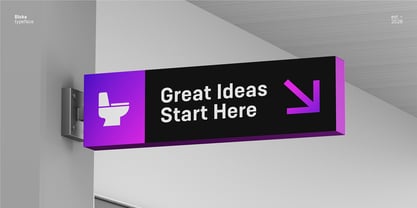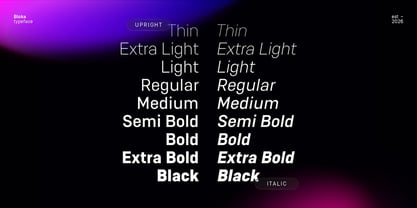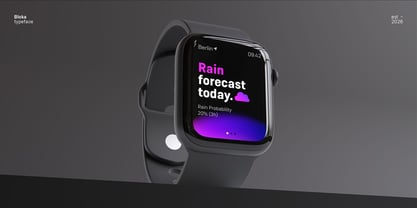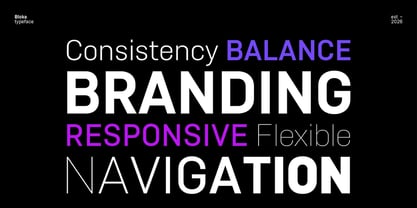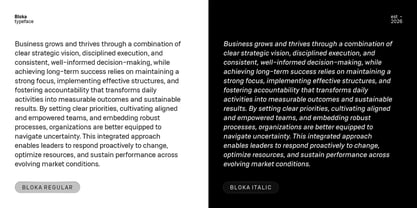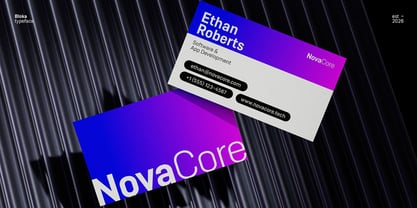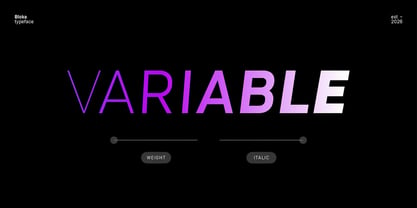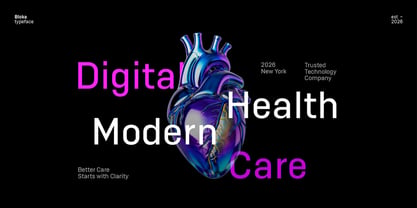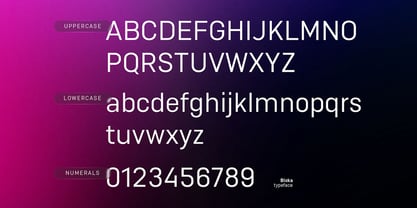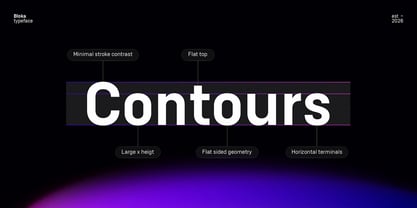
Bloka Sans
Die Schriftfamilie Bloka Sans wurde von Yusuf Niky Syahroni entworfen und von Digitype Studio veröffentlicht. Bloka Sans enthält 19 Stile und Familienpaketoptionen. Mehr über diese Familie
Bloka is a geometric sans serif typeface precision-engineered to deliver a perfect balance between functionality and modern aesthetics. Featuring a robust structure and clean curves, Bloka exudes confidence while remaining versatile enough for the diverse demands of contemporary design. Available in 9 weights ranging from Thin to Black with matching italics, Bloka also includes variable font support for seamless weight control. It is ideal for branding, logos, headlines, editorial layouts, UI/UX, posters, and corporate identities, across both digital and print platforms.
Designer: Yusuf Niky Syahroni
Foundry: Digitype Studio